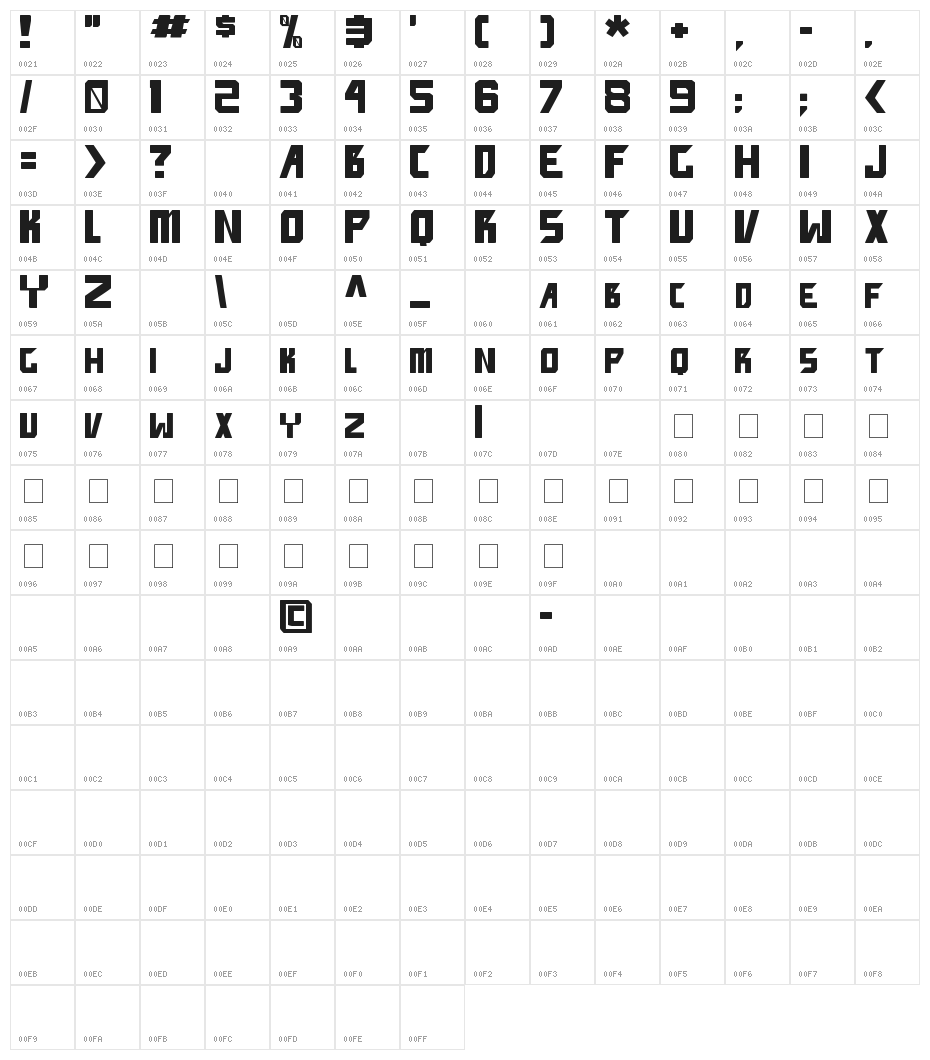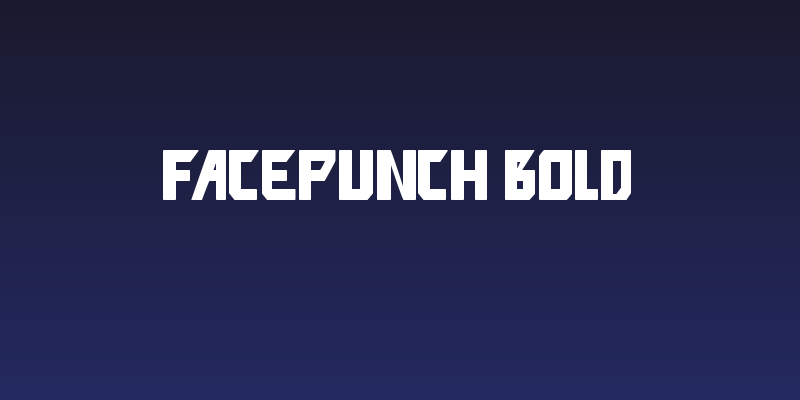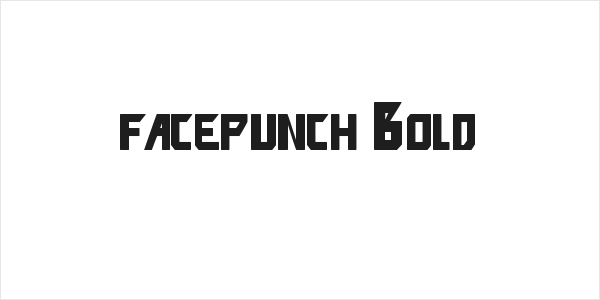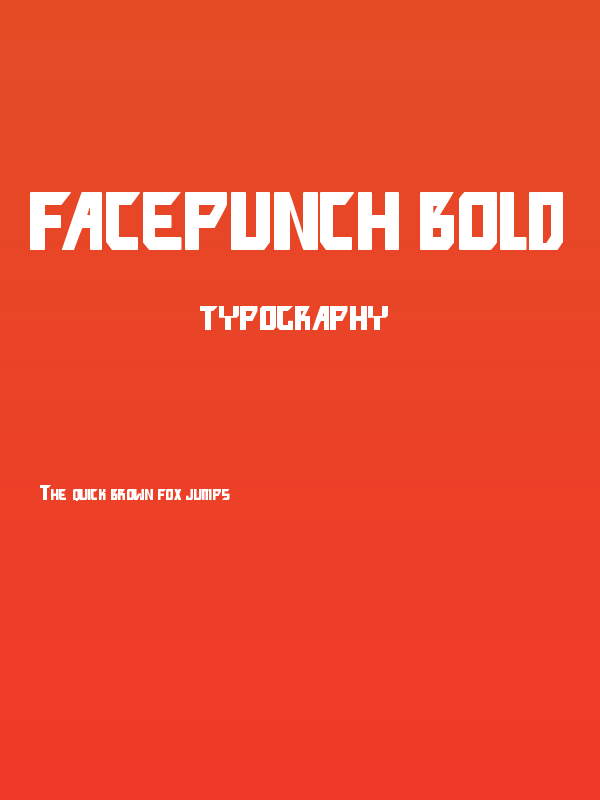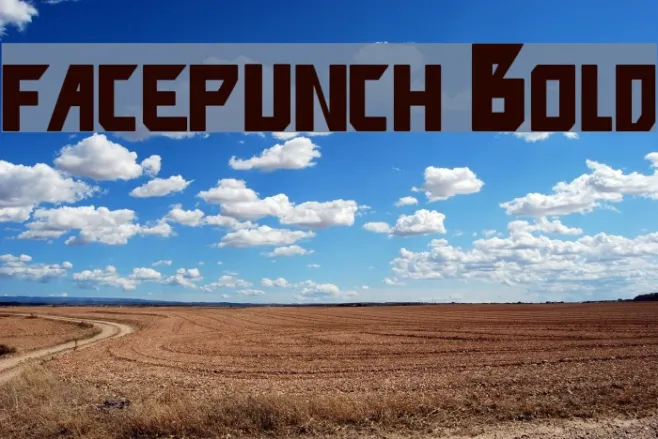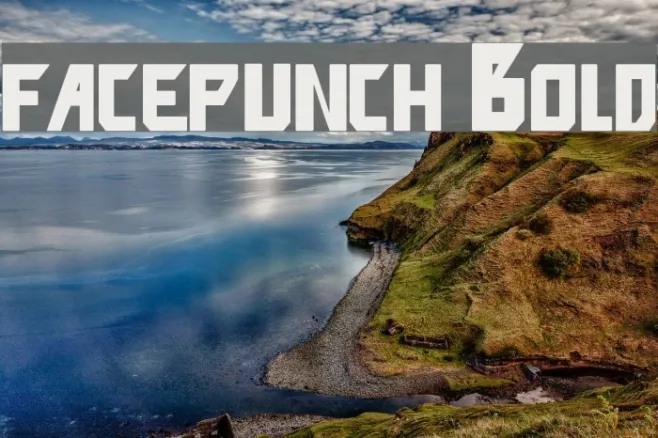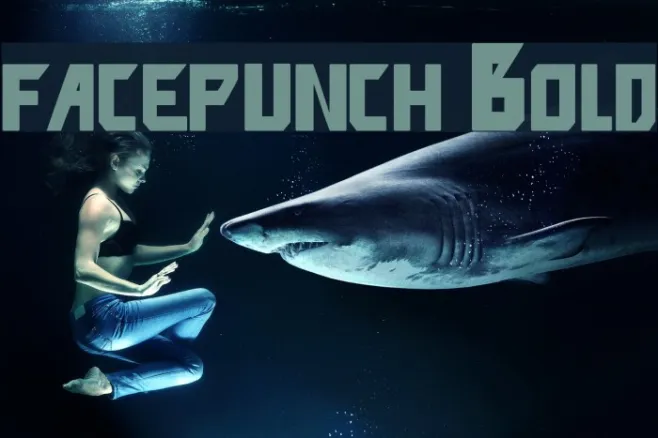
facepunch Bold Font
facepunch Bold Description
This bold, geometric font features a strong, angular design with a modern and industrial feel. The characters are constructed with sharp edges and a blocky appearance, giving them a robust and impactful presence. The uppercase and lowercase letters maintain a consistent style, with the lowercase slightly smaller but equally bold. Numbers and special characters follow the same design principles, ensuring uniformity across all glyphs. The font's heavy weight and solid structure make it ideal for attention-grabbing headlines and logos, where a strong visual impact is desired.
FACEPUNCH-BOLD UPPERCASE
FACEPUNCH-BOLD LOWERCASE
FACEPUNCH-BOLD OTHER CHARS
| Proposed Projects | Ideal for use in branding, posters, headlines, and any project requiring a strong, impactful typeface. |